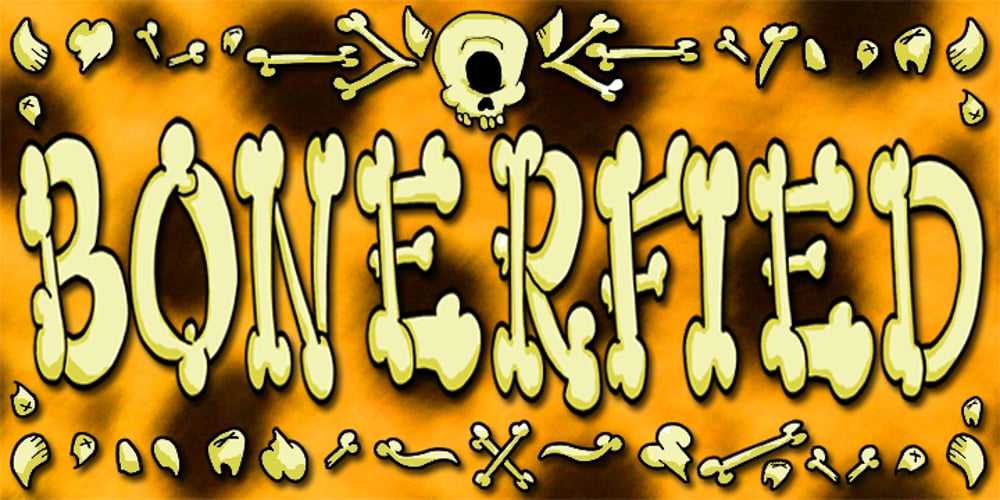
Bonerfied Font Family was designed by published by IC Fonts. Bonerfied contains 2 styles and family package options. This is a fun Bone type font to give that Bone Chilling look to any of your designs. Comes with Skulls and loose Bone options. This a great Font for a Halloween Bone Font Design